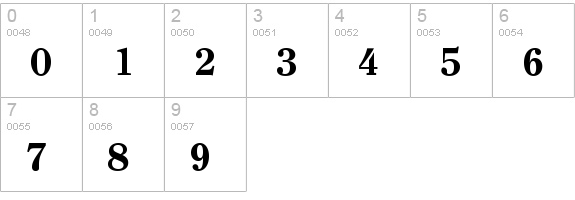
ClearfaceEF-Heavy is a heavy, high-impact variant in the ClearfaceEF typeface family \xE2\x80\x94 well suited to high-impact headlines, posters, and display advertising.
ClearfaceEF-Heavy is a bold and commanding font that exudes strength and confidence. Its thick, heavy strokes make it perfect for headlines, posters, and other designs that demand attention. The font's sharp angles and clean lines give it a modern and sophisticated look, making it ideal for projects that require a touch of elegance. What sets ClearfaceEF-Heavy apart is not only its striking appearance but also the fact that it is available for free download at FontsMarket.com. This means that you can easily access this powerful font without having to worry about any costs. Whether you are a designer looking to add a bold statement to your work or a business owner in need of a strong visual identity, ClearfaceEF-Heavy is a versatile and impactful choice that won't break the bank. Download it today and elevate your designs with this exceptional font.